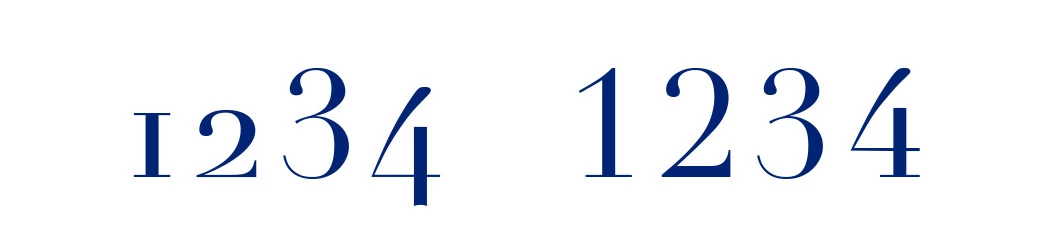
Font looks different in photoshop than on System
I downloaded a font but when I add a text some numbers and letters look different.
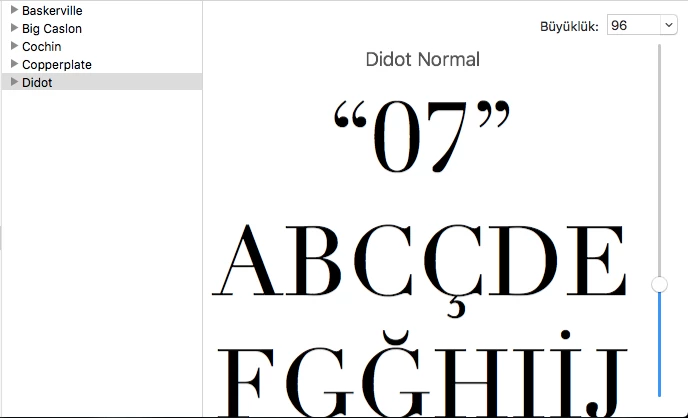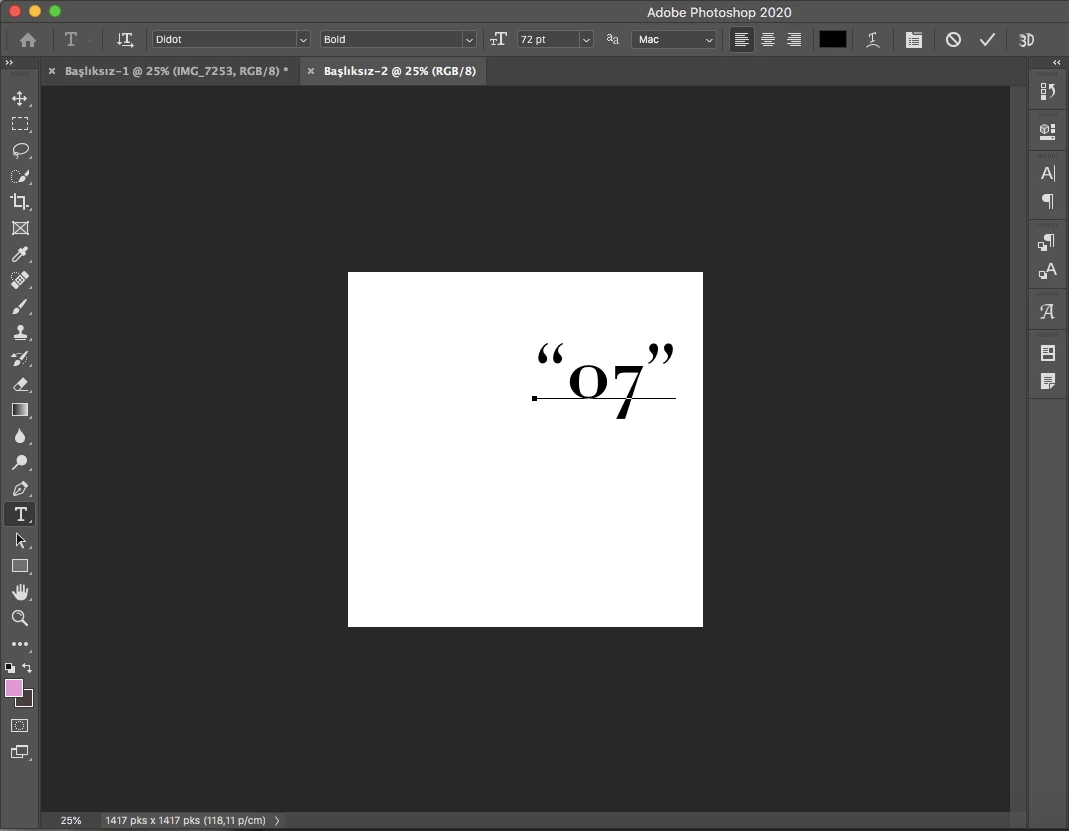
And I already tried adding new character style by making the horizontally setting 100
What version of macOS are you using?
Is your system language something other than english?
Where did you get the Didot font from?
I have been checking various versions of macOS/OS X and even macOS Catalina seems to have an Adobe version of the Didot font installed and it's not from Adobe Fonts.
(most likely a photoshop elements install on Catalina provided the Didot font.)
Looks like it may be a different font. Top picture: Didot Normal. Bottom picture: Didot bold.
May be just a poor quality font. I downloaded one and it did not work well.
There are several Didot fonts in Adobe Fonts, but there seem to be many different designs.
Some fonts offer lining and old style numbers (also proportionate and tabular versions).
Check out your glyphs: Type > Panels > Glyphs Panel.
Good typographic practice is to use (generally) lining figures with capital letters and old style figures with lower case text.